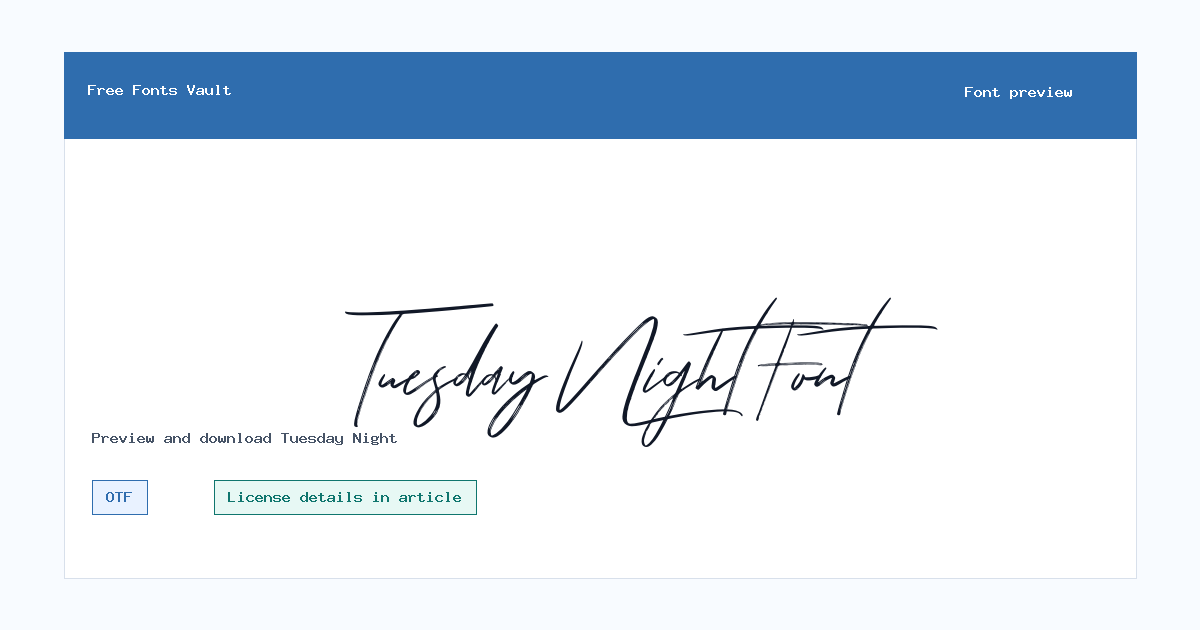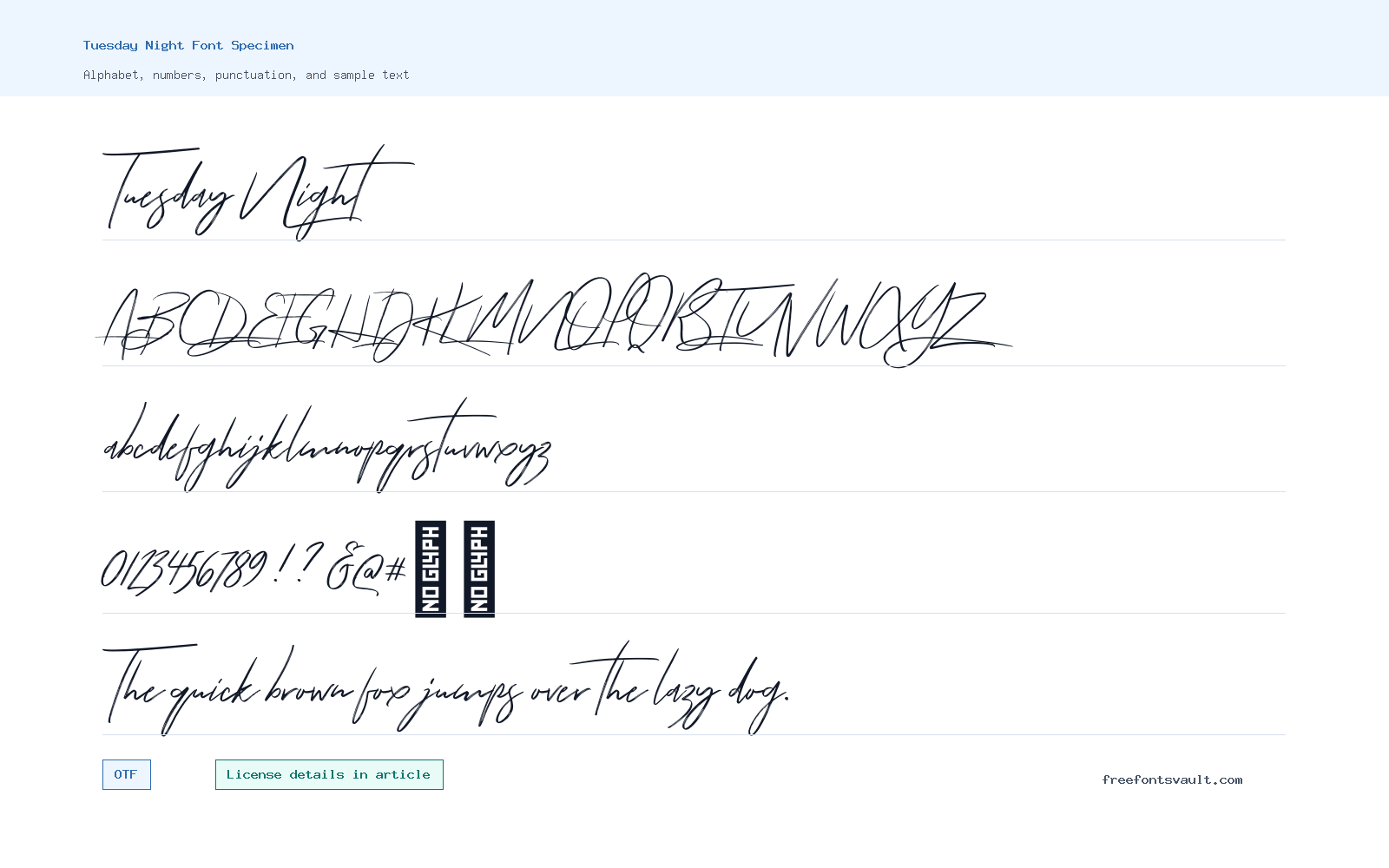
Tuesday Night
Tuesday Night font preview showing the family name
Tuesday Night Font
Tuesday Night font specimen showing alphabet, numbers, and sample text
Tuesday Night font.
Tuesday Night is a signature script font with tall, sweeping capitals and a loose handwritten rhythm. It works best when you want a personal, elegant look in short text rather than long paragraphs.
About Tuesday Night Font
Tuesday Night was created by Font Forestry and shared as a free signature script. Its most recognizable detail is the oversized uppercase style, which gives names, initials, and short phrases a dramatic handwritten feel. The regular OpenType file is suited to display use, especially where the text can stay large enough for the thin strokes and connected letters to remain clear.
Use Tuesday Night for wedding invitation mockups, personal logo concepts, apparel previews, decorative quotes, prints, scrapbooking layouts, stationery, and social graphics. Keep it to names, headings, short lines, or accent words. For body text, menus, dense captions, or small mobile labels, pair it with a simple serif or sans serif so the script can stay readable and decorative.
• Signature script style with extra-large capital letters
• Handwritten look suited to short phrases, names, and branding mockups
• Includes basic letters, numbers, and punctuation shown by third-party character previews
• Wedding invitations and save-the-date designs
• Personal logo drafts and signature-style name marks
• Decorative quotes, prints, and scrapbook pages
• Apparel previews, labels, and social media graphics
• Stationery headings and elegant accent typography
Preview your exact words before downloading. The large capitals can change the balance of a design, so test names and initials in uppercase and lowercase. Add generous spacing around the font, avoid very small sizes, and pair it with a clean, quiet typeface for supporting text.
What kind of font is Tuesday Night?
It is a signature script font with a handwritten look and extra-large capital letters.
What is Tuesday Night best used for?
It is best for short display text such as wedding names, invitation headings, personal logo mockups, decorative quotes, prints, apparel previews, and social graphics.
Is Tuesday Night good for paragraphs?
No. It is better as an accent font. Use a simpler font for long reading text and keep Tuesday Night for headings, names, or short phrases.